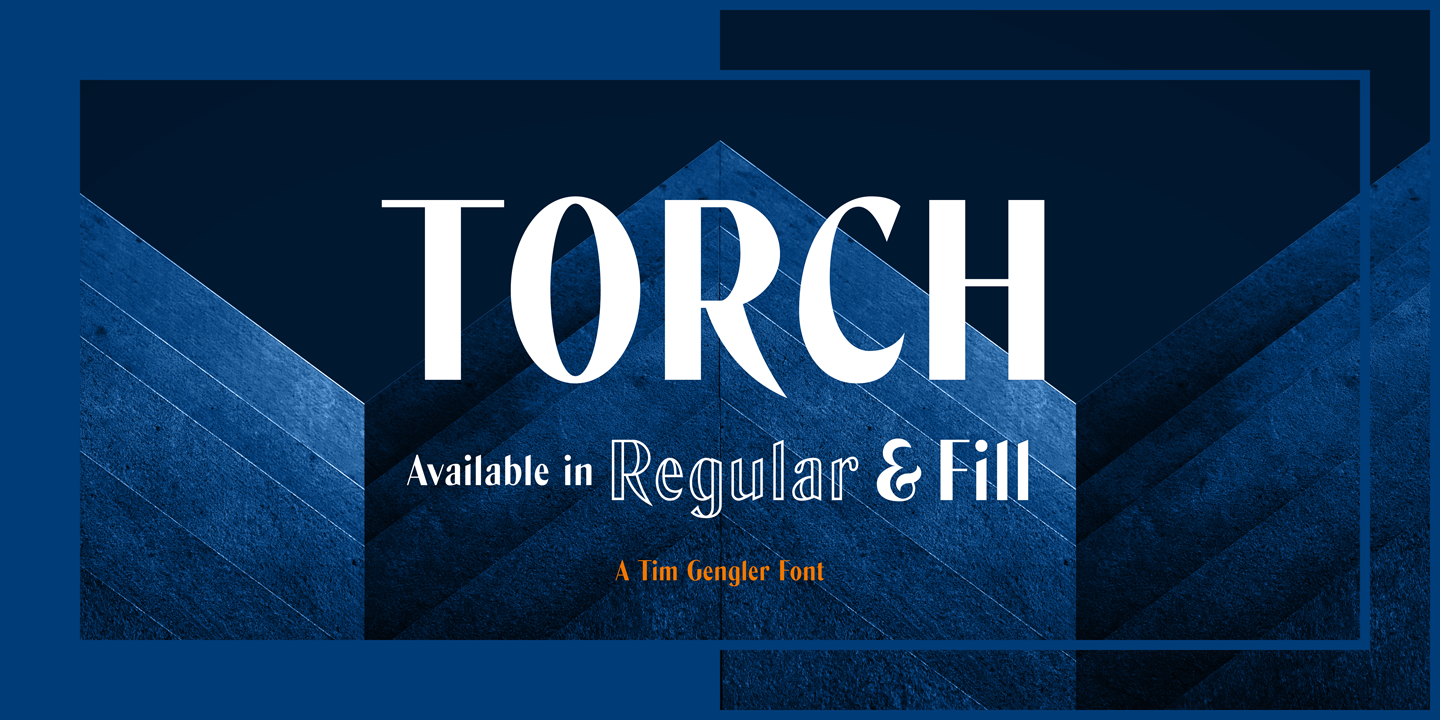
Torch Font Free Download is a bold, impactful display typeface designed to ignite attention and fuel your message with power and confidence. Please note that you must purchase this font for commercial use. It is available for free download for personal and testing purposes only.
You can use Torch Font in sports branding, music event posters, motivational quote graphics, product packaging, gaming logos, streetwear designs, and any layout that demands energy, movement, and raw visual force. Its strong presence makes it ideal for headlines that refuse to go unnoticed.
What makes Torch so exciting is its fierce personality — every letter feels like it’s shouting with purpose. With its thick lines, tight spacing, and dynamic structure, it’s built to create maximum impact while maintaining visual balance and legibility.
The Torch Font family includes high-intensity styles such as Torch Regular, Torch Bold, Torch Condensed, and Torch Shadow, providing versatile tools for designers who want to crank up the intensity in different ways.
If you're looking for a typeface that lights a fire under your visuals, Torch Font Free Download is the spark you need. Download it today and bring blazing energy and bold style to your next creative project.